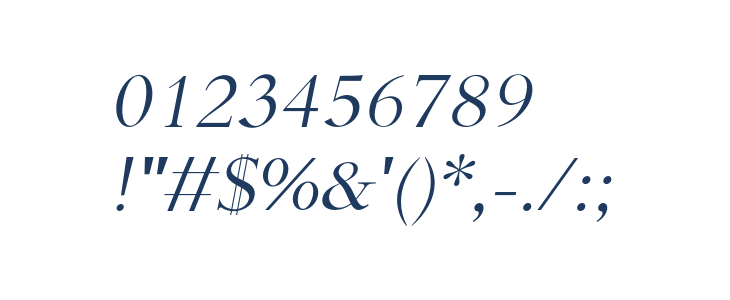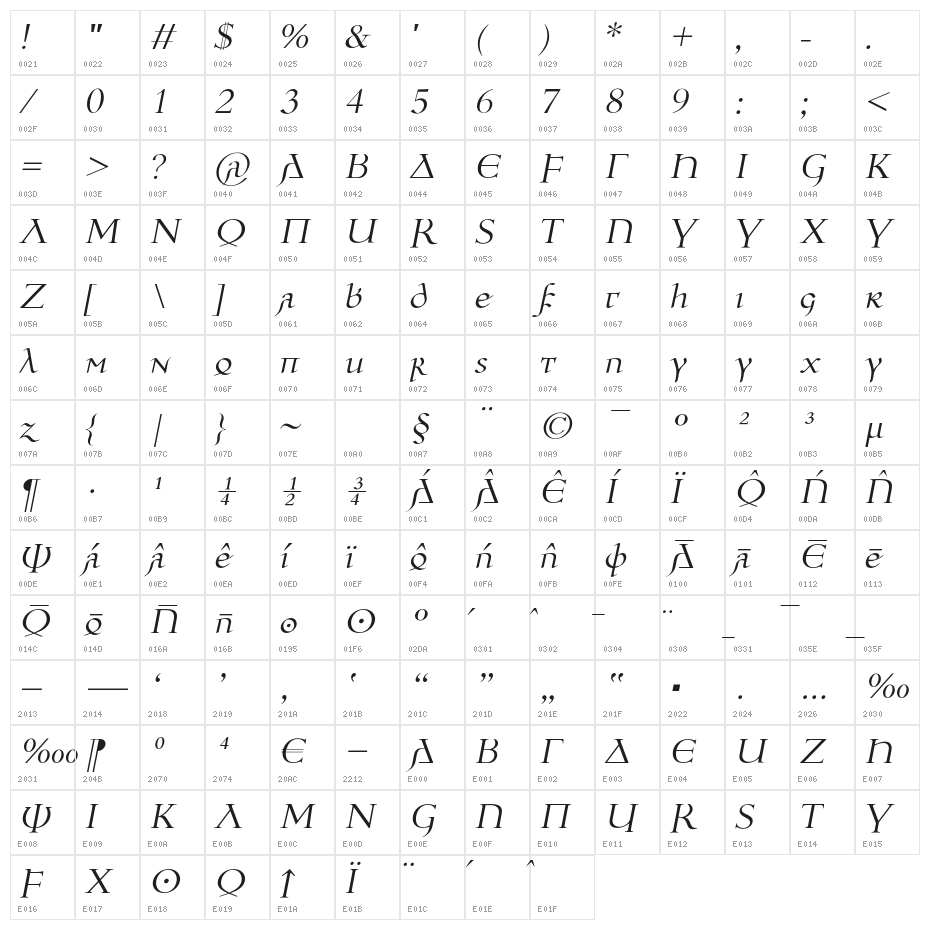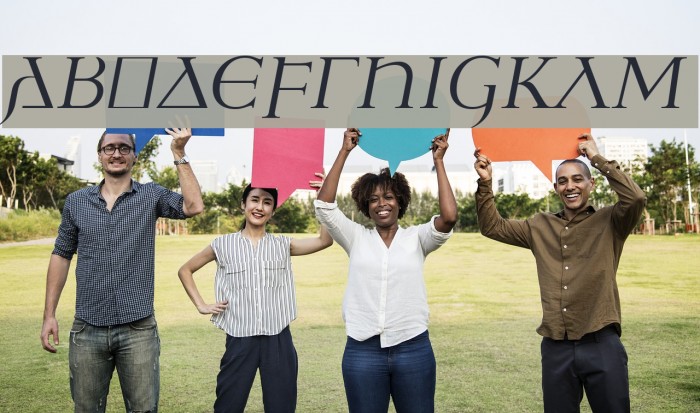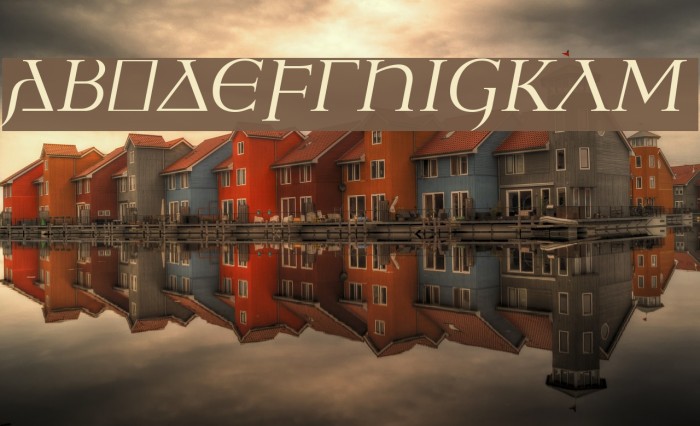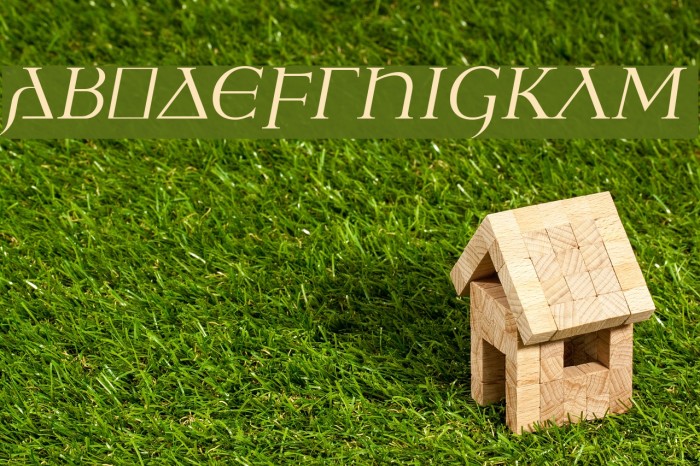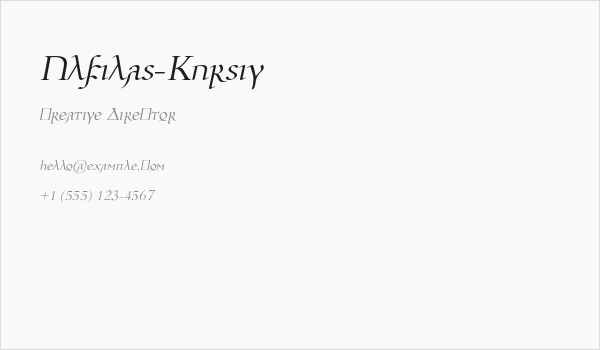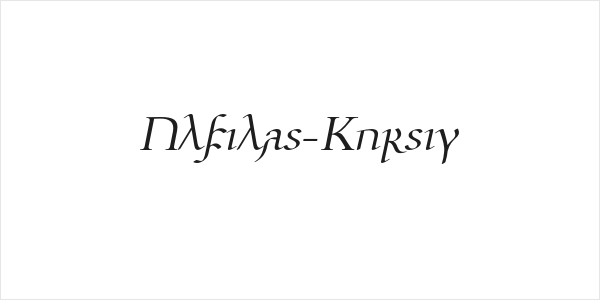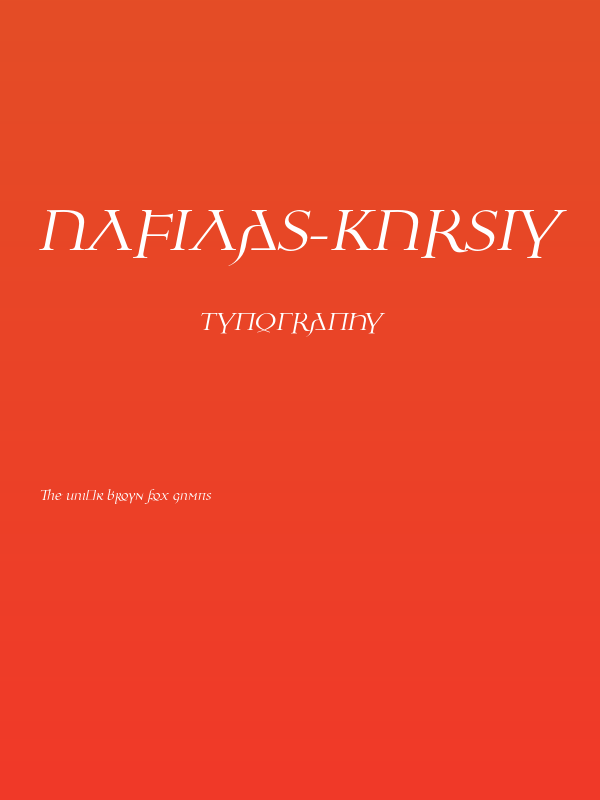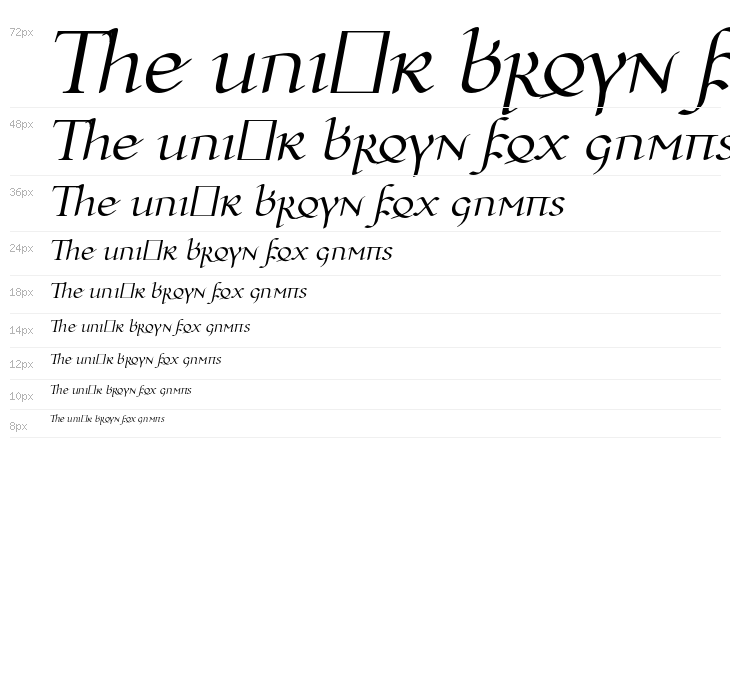
Ulfilas-Kursiv Font
Ulfilas-Kursiv Description
This font features a unique blend of traditional and modern elements, characterized by its elegant and flowing cursive style. The letters exhibit a distinct slant, giving it a dynamic and sophisticated appearance. The uppercase letters are bold and prominent, while the lowercase letters maintain a graceful and fluid form. The numerals are consistent with the overall style, offering a harmonious look. Special characters are well-integrated, enhancing the font's versatility. This font's design is both artistic and functional, making it suitable for a variety of creative applications.
| Use Case | Logos, Invitations, Editorial Design |
| Proposed Projects | Ideal for wedding invitations, elegant branding, artistic posters, and sophisticated editorial design. |